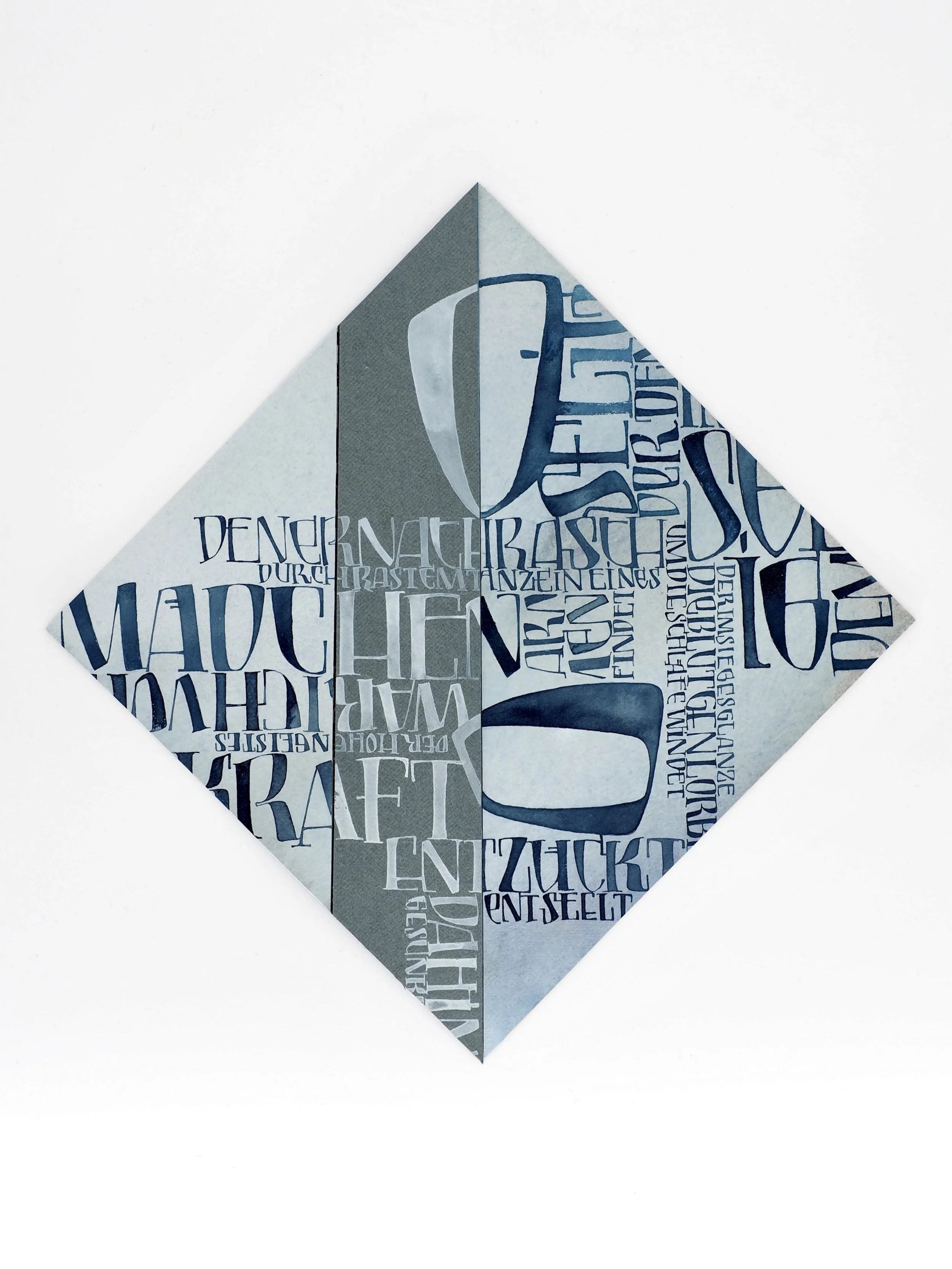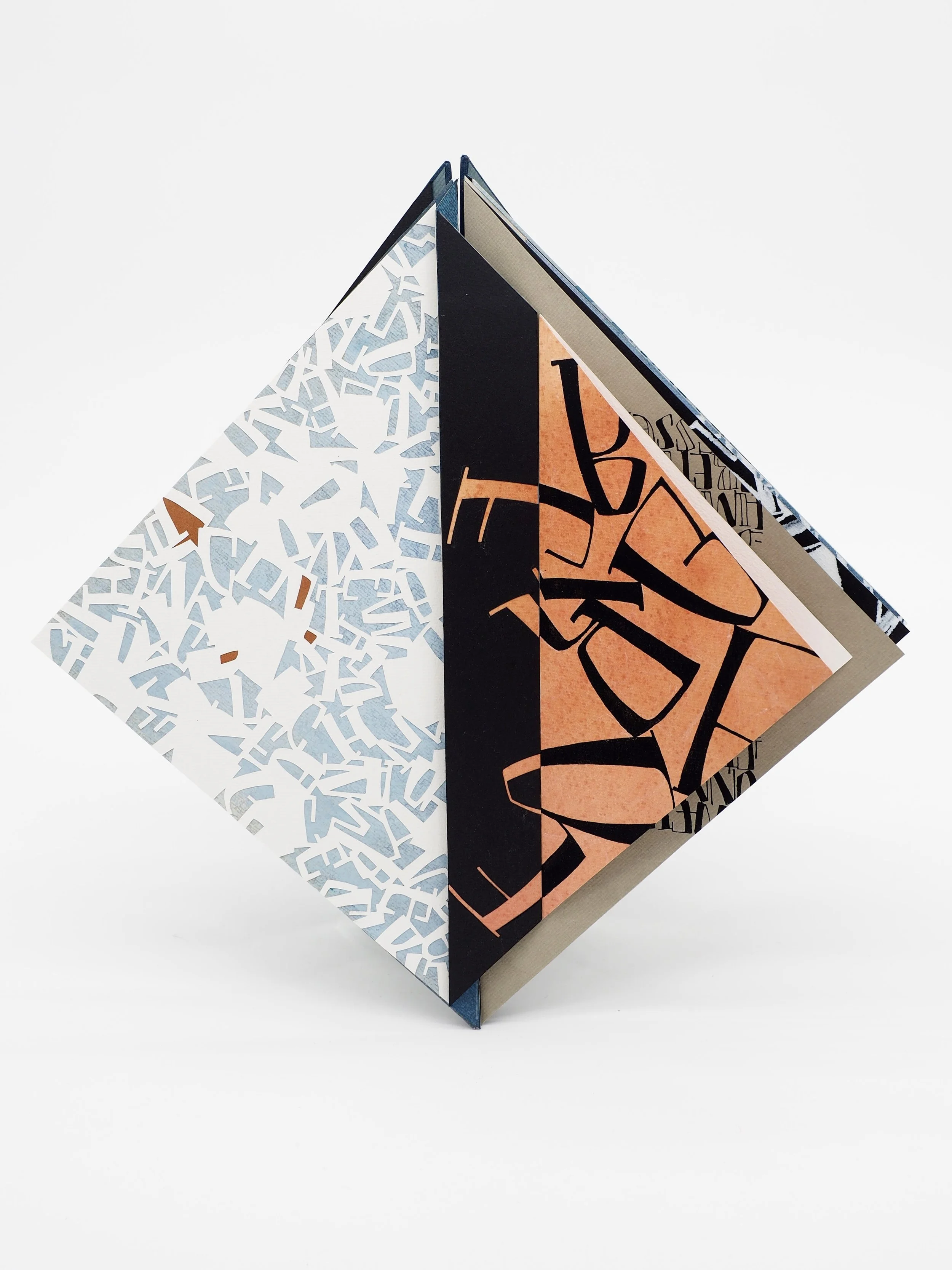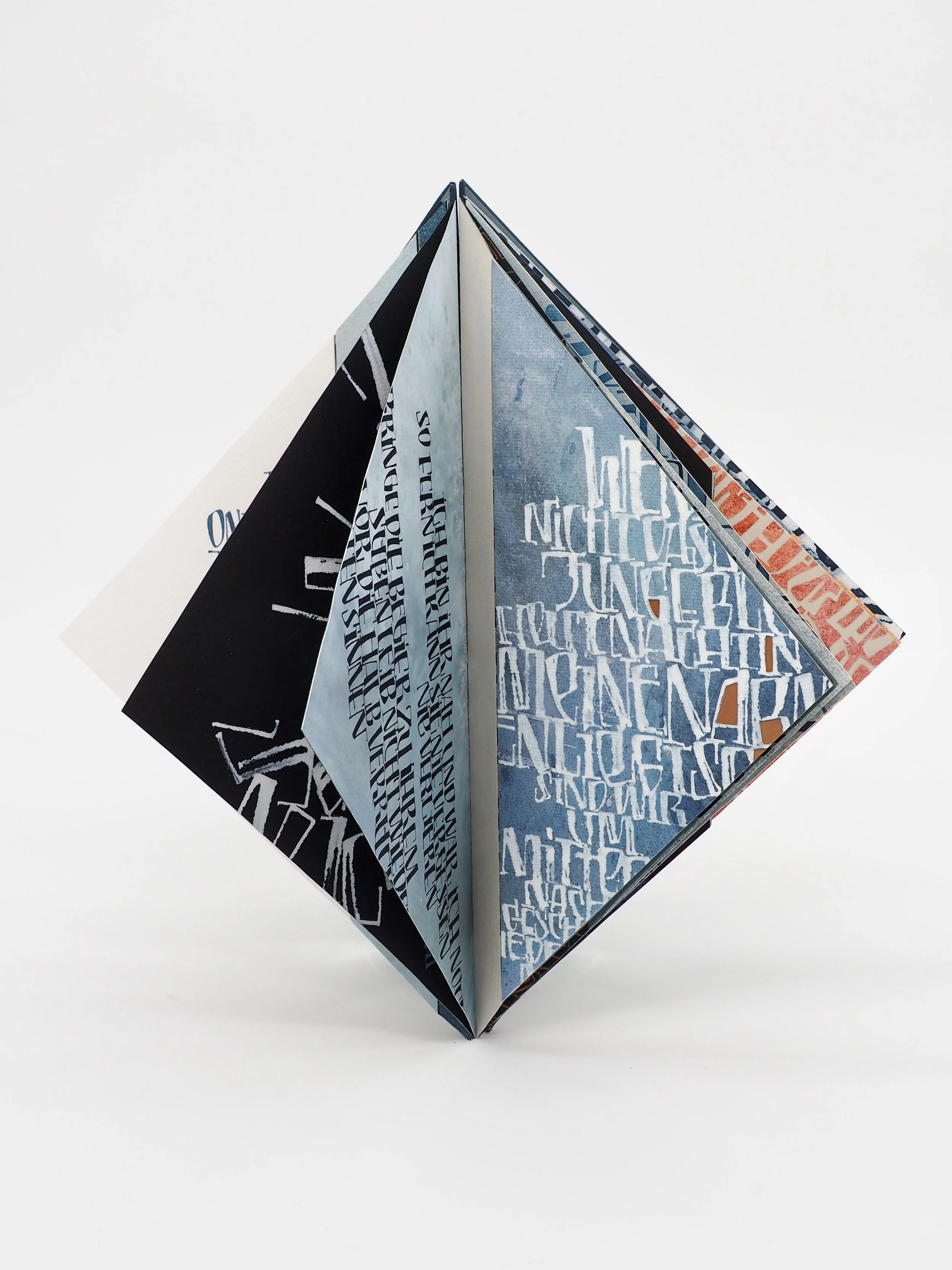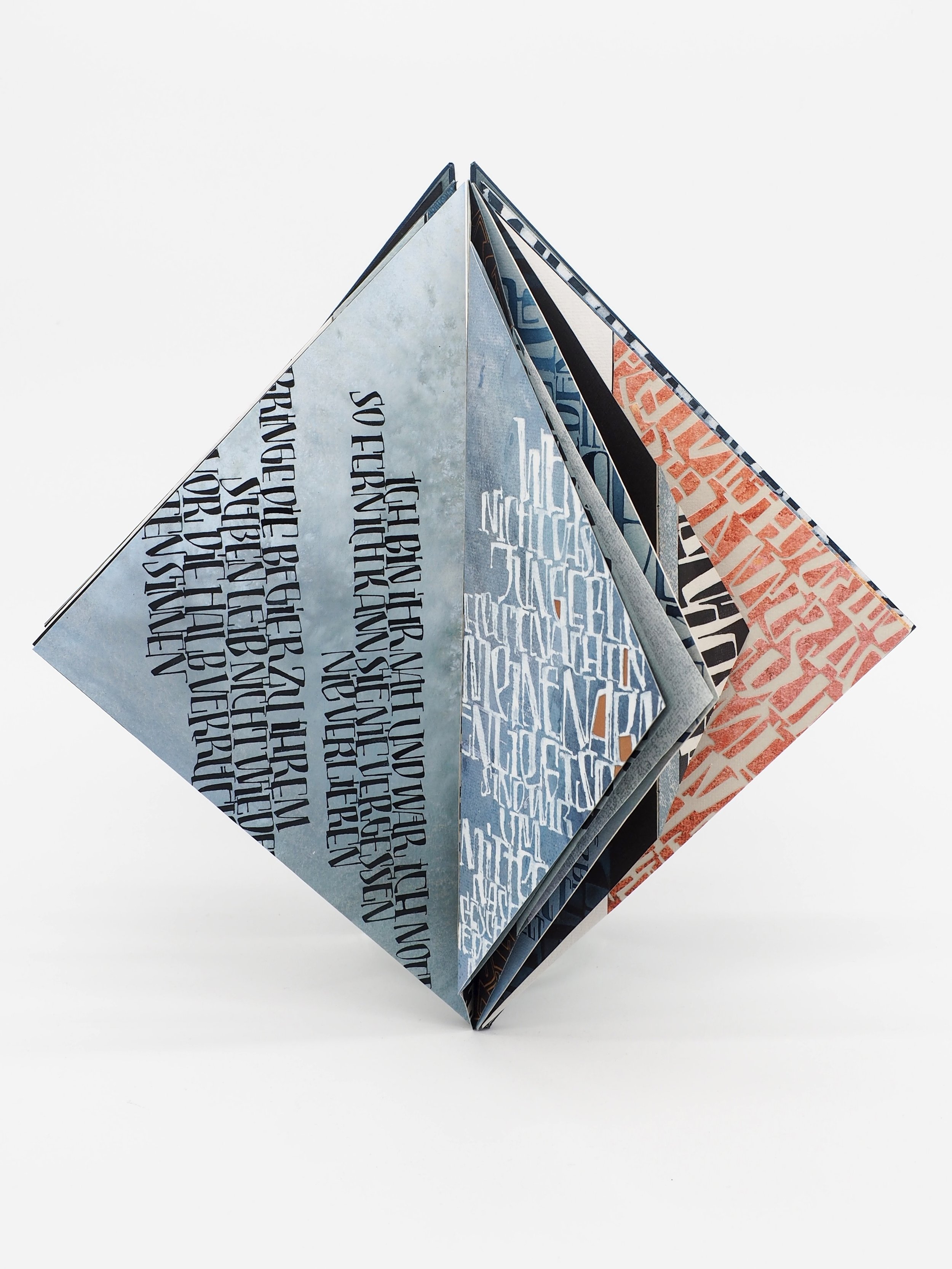
NADINE WEHRLI | Book of Faust
ARTIST | Nadine Wehrli
BASED IN | Weimar, Germany
TITLE | Book of Faust
SIZE | 340 × 170 mm
MEDIUM | MBM Arches Papier, gouache, acrylic paint
A feat of engineering, craft and artistry, this 38-page book inspired by Goethe’s Faust , features a character-appropriate approach to font and colour, interwoven with original quotations from Faust I. Specially designed graphic letterforms and carefully chosen papers and colour elements reflect the character of Faust, creating visual characterisation that deepen the narrative content of the text.
An artist based in Weimar, Germany
Nadine Wehrli
Nadine Wehrli, based in Weimar, Germany, is a trained theatre painter and art therapist who discovered her passion for calligraphy a few years ago. She works at the intersection of traditional and modern calligraphic styles, creating pieces that balance precision with creativity. Nadine’s artistic practice spans a range of materials and approaches, allowing her to develop unique works that reflect both craftsmanship and exploration. Her current focus includes interpreting classical works and developing contemporary forms of expression that weave together history and modernity.